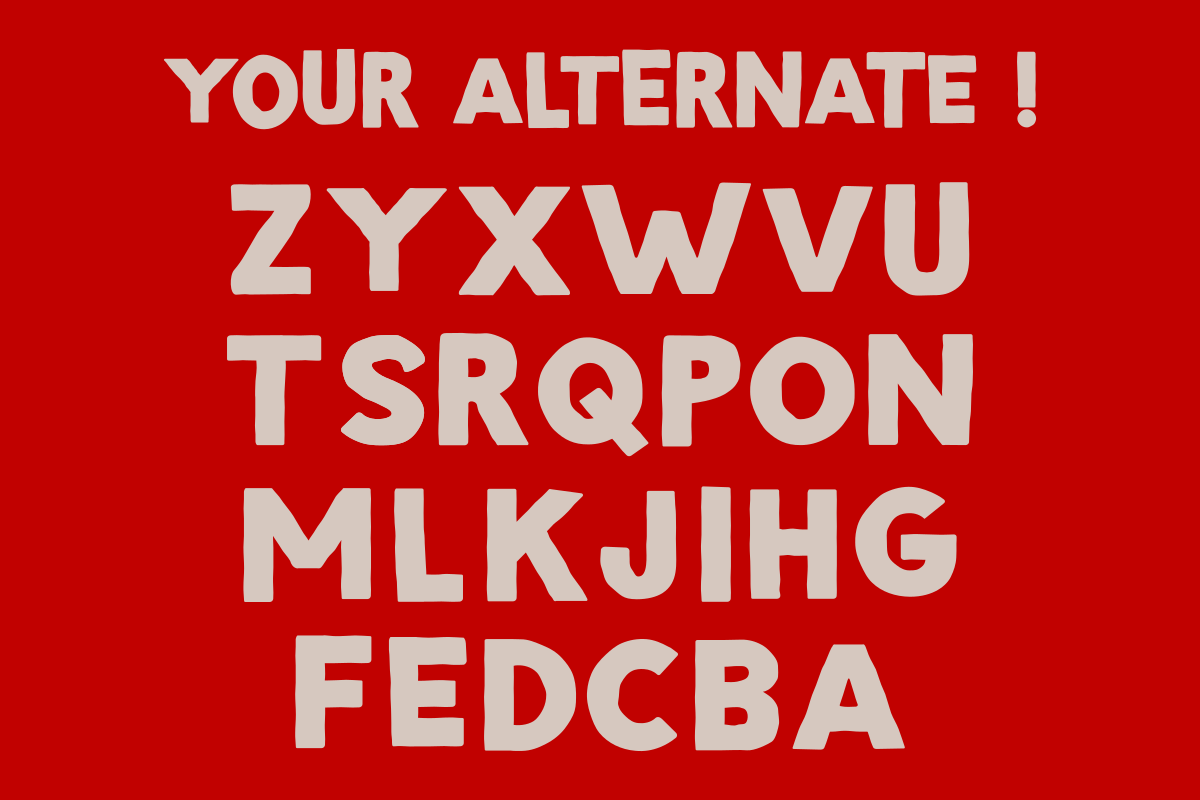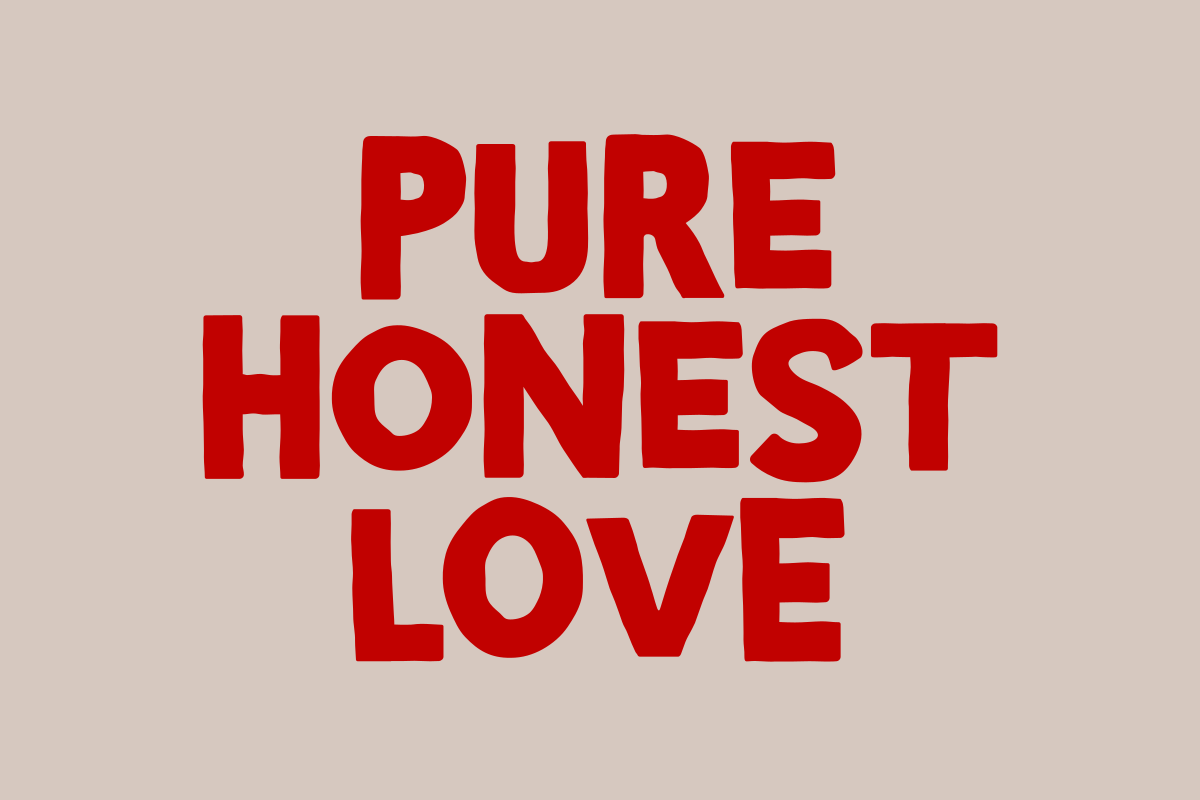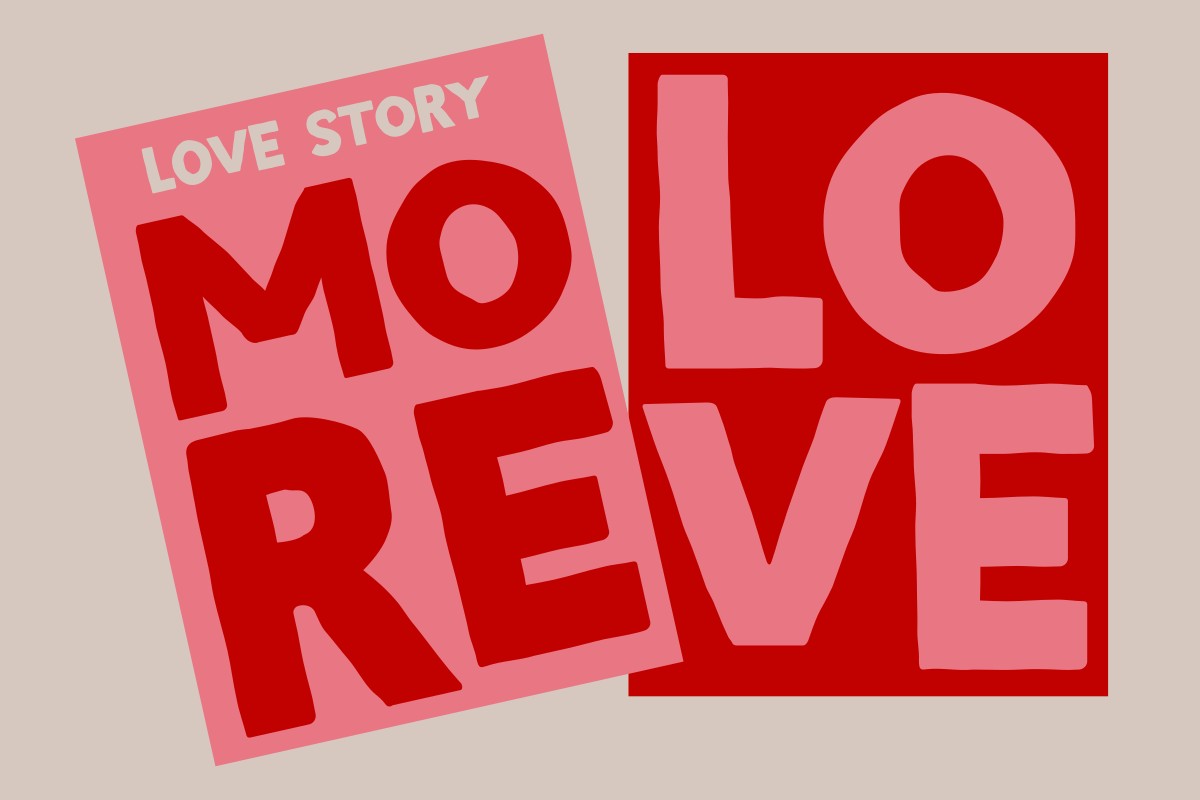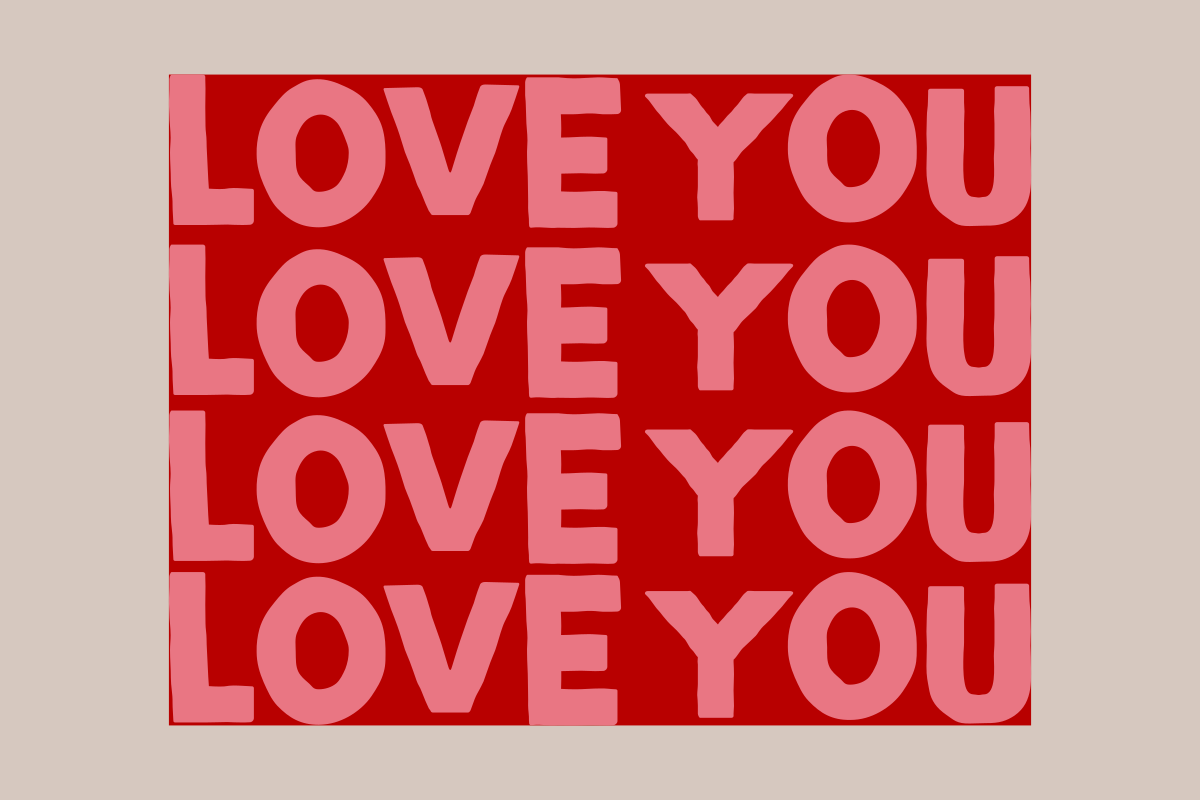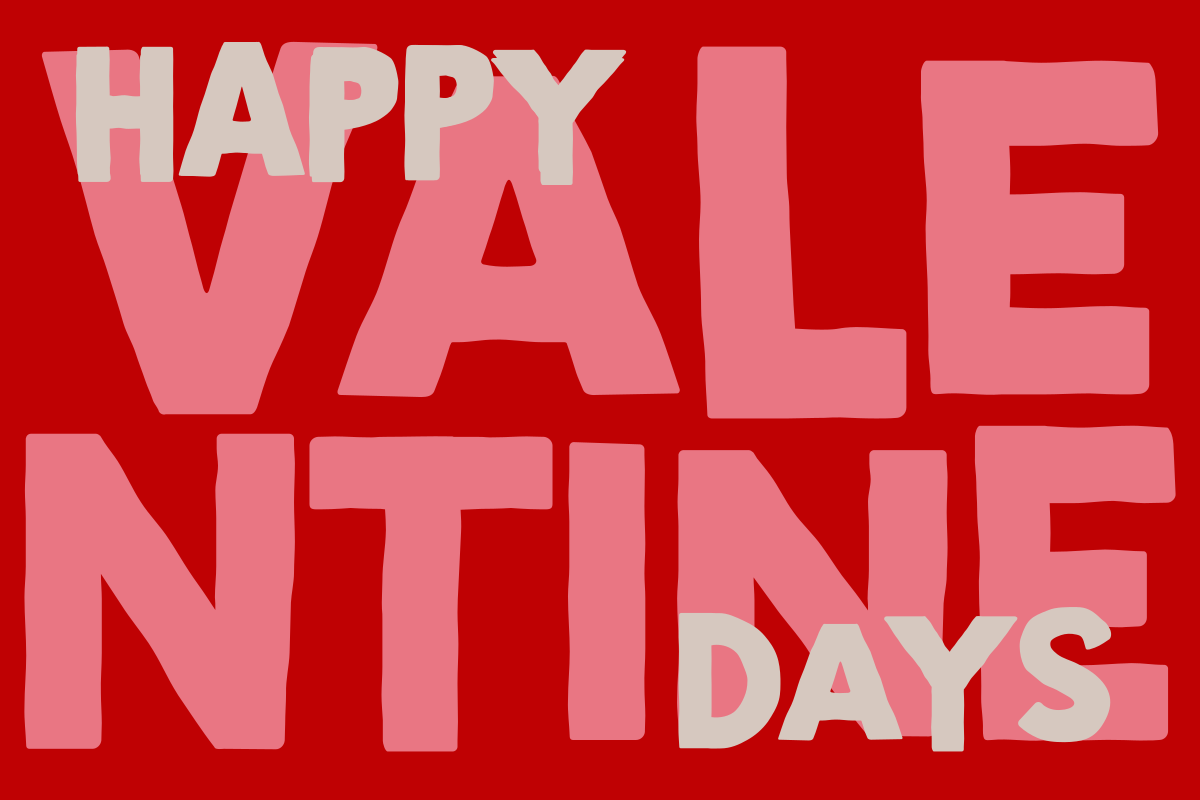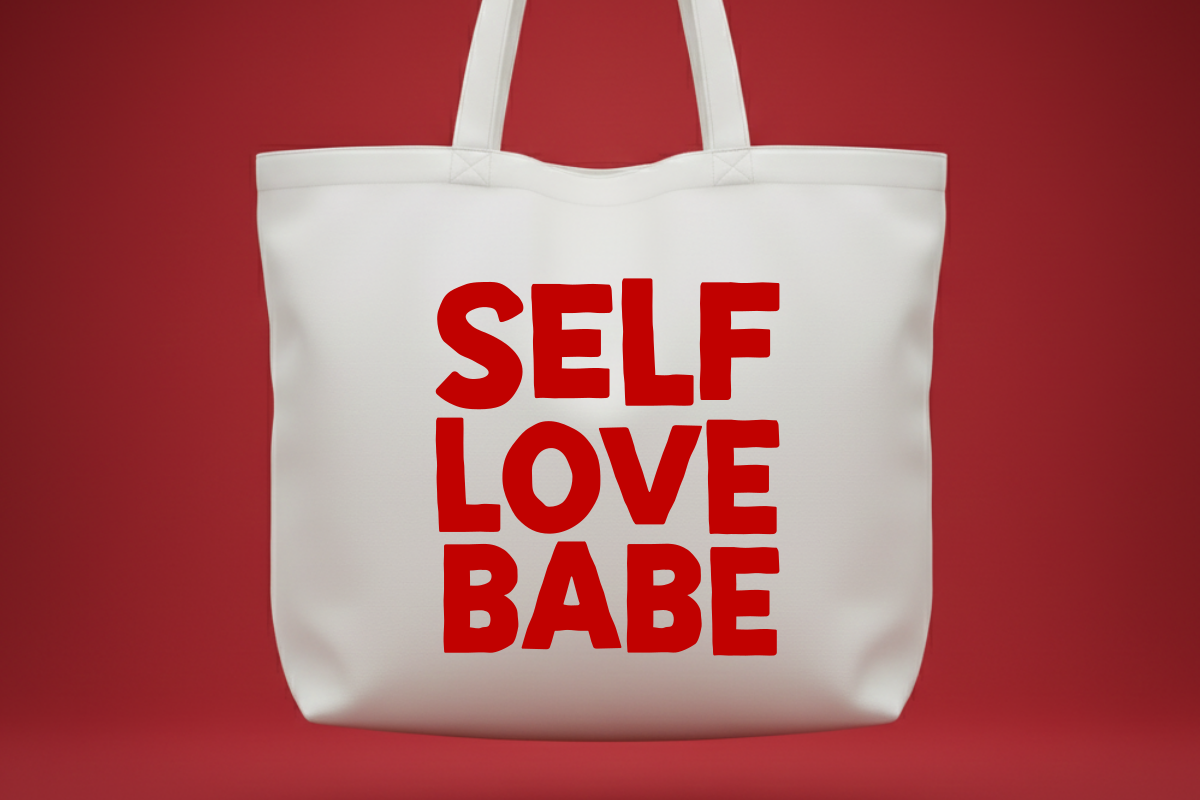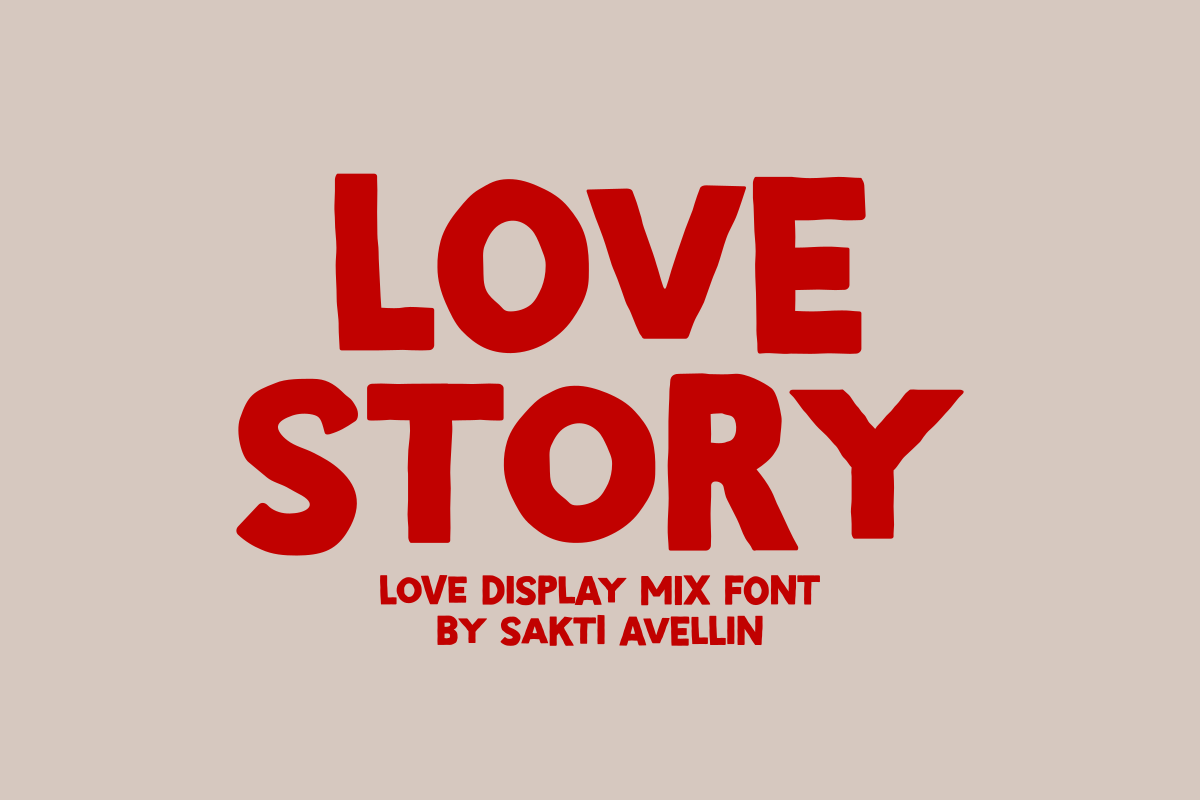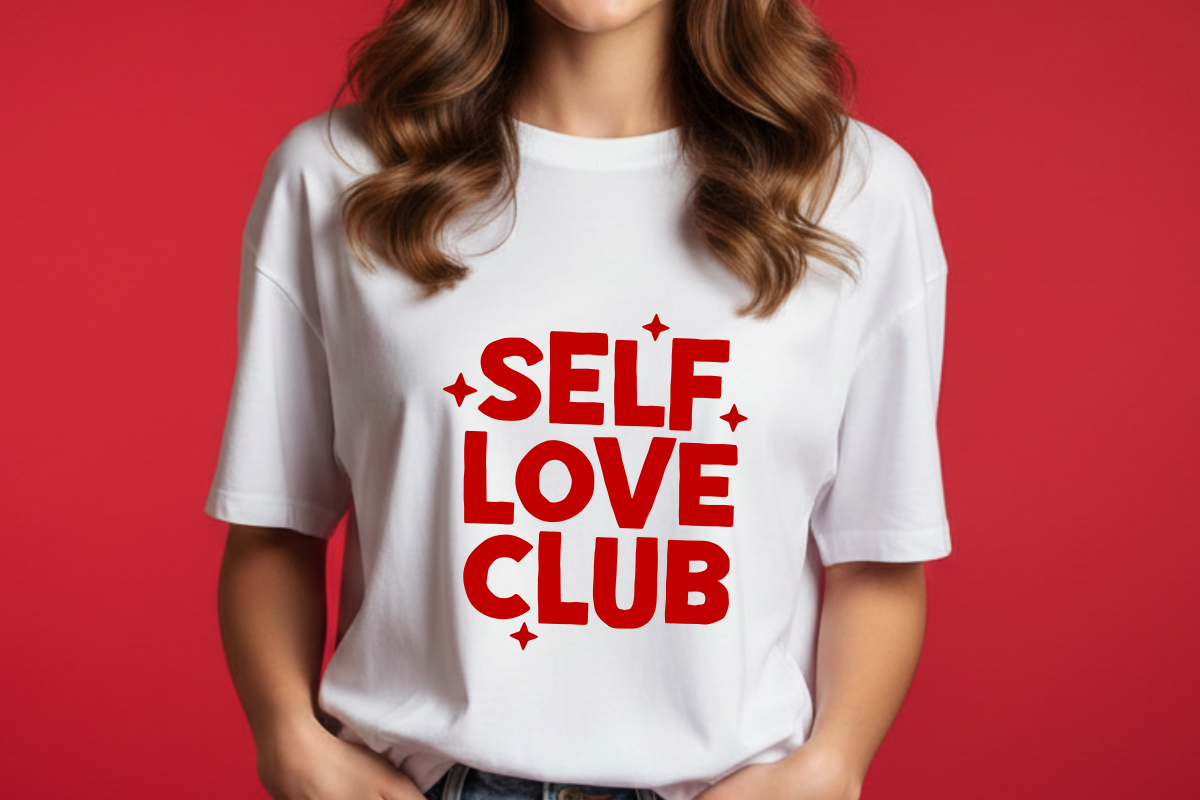
Love Story - Display Mix Font
Love Story is a bold and charming love display mix font designed to bring a romantic, handcrafted touch to your creative projects. This playful display typeface features thick, organic letterforms that capture the warmth of a hand-drawn aesthetic, making it an ideal choice for Valentine's Day branding, wedding invitations, romantic greeting cards, and heartfelt social media graphics. Its solid, eye-catching presence ensures your headlines stand out with a sweet and modern vibe. Perfect for stickers, apparel, and heartfelt quotes, Love Story adds a lovely and creative energy to every design.